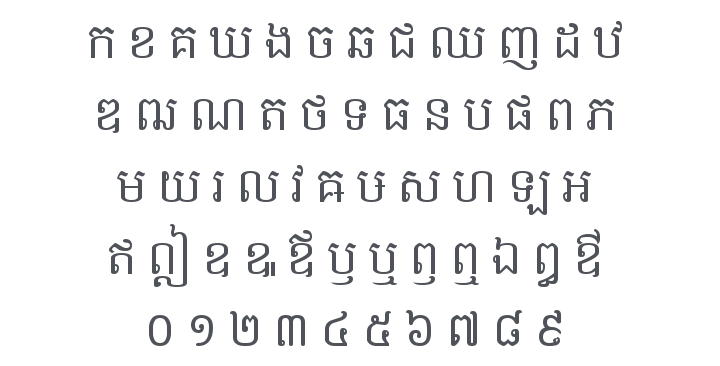
Content Font Family
by Danh Hong
Content Font Family
• Content
• Content Bold
About Content
The Content fonts are designed for readable and beautiful rendering of text in the Khmer script, the national language of Cambodia. The designer, Danh Hong, has many years of experience creating fonts for Khmer and other Southeast Asian languages, and is actively involved in the KhmerOS project, dedicated to a vision where Cambodians can learn and use computers in their own language.